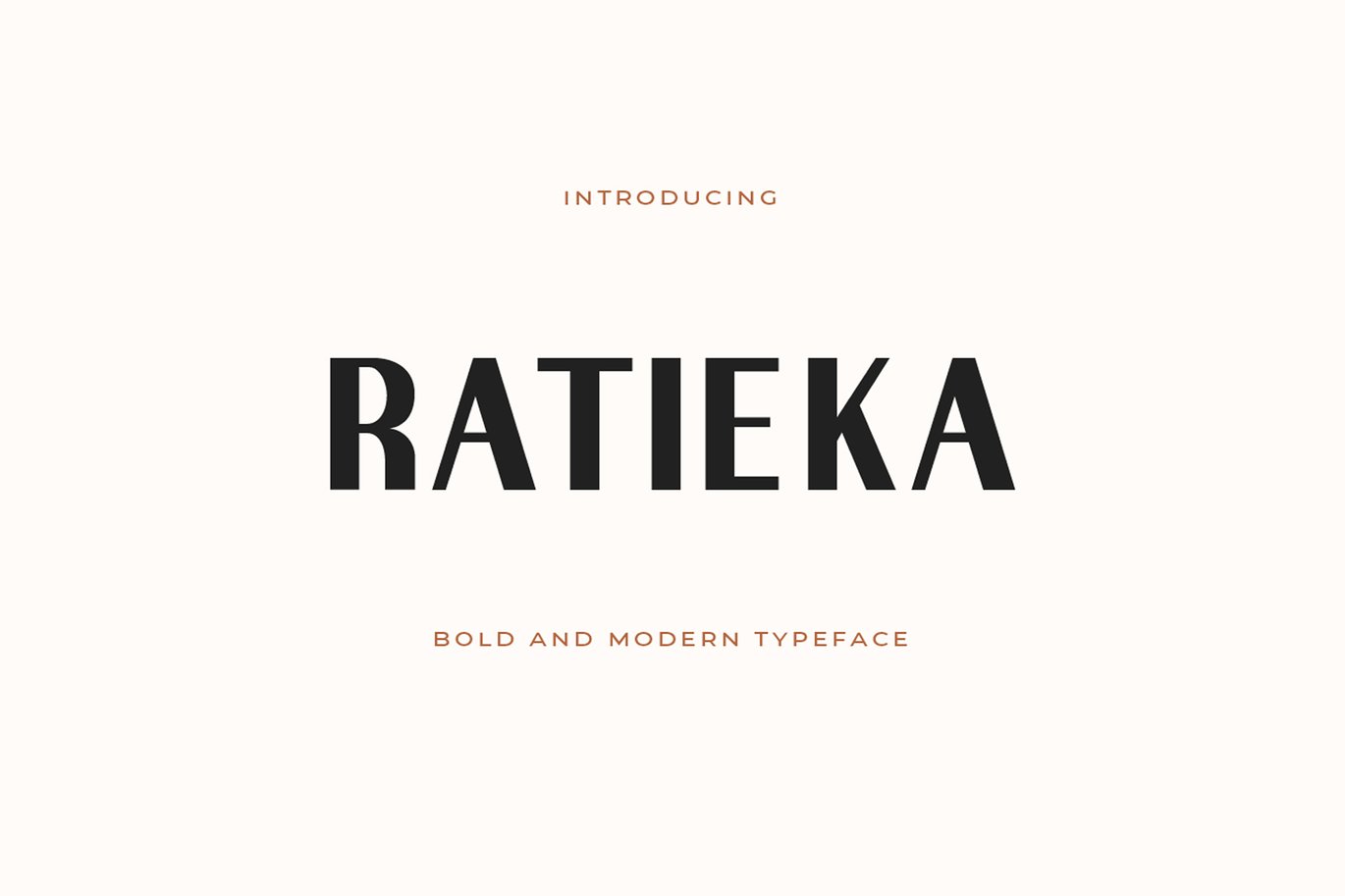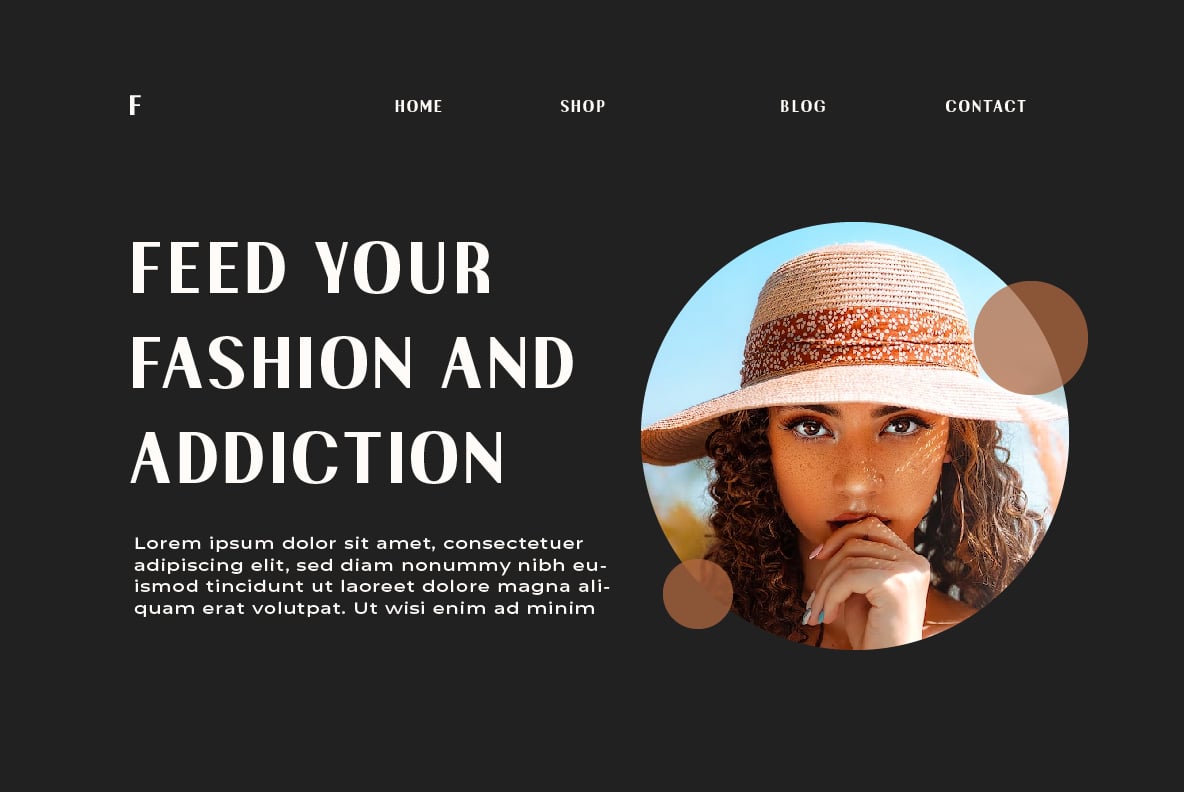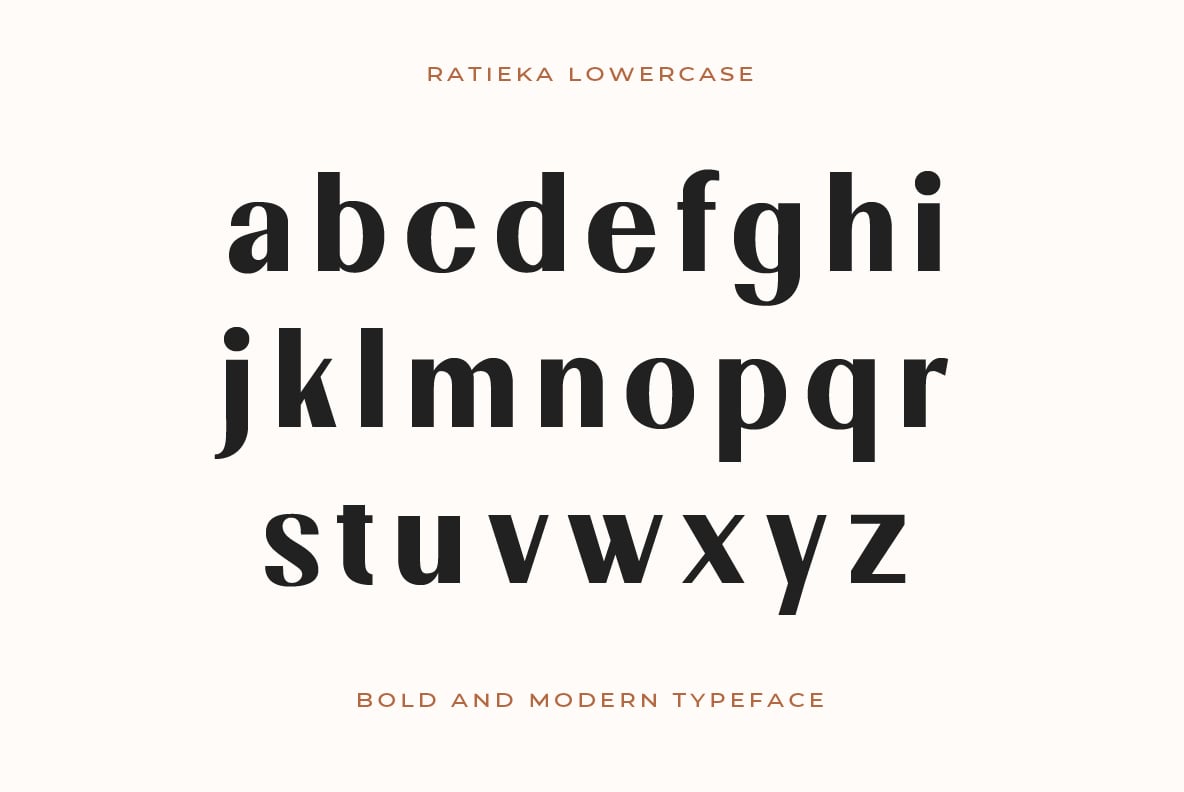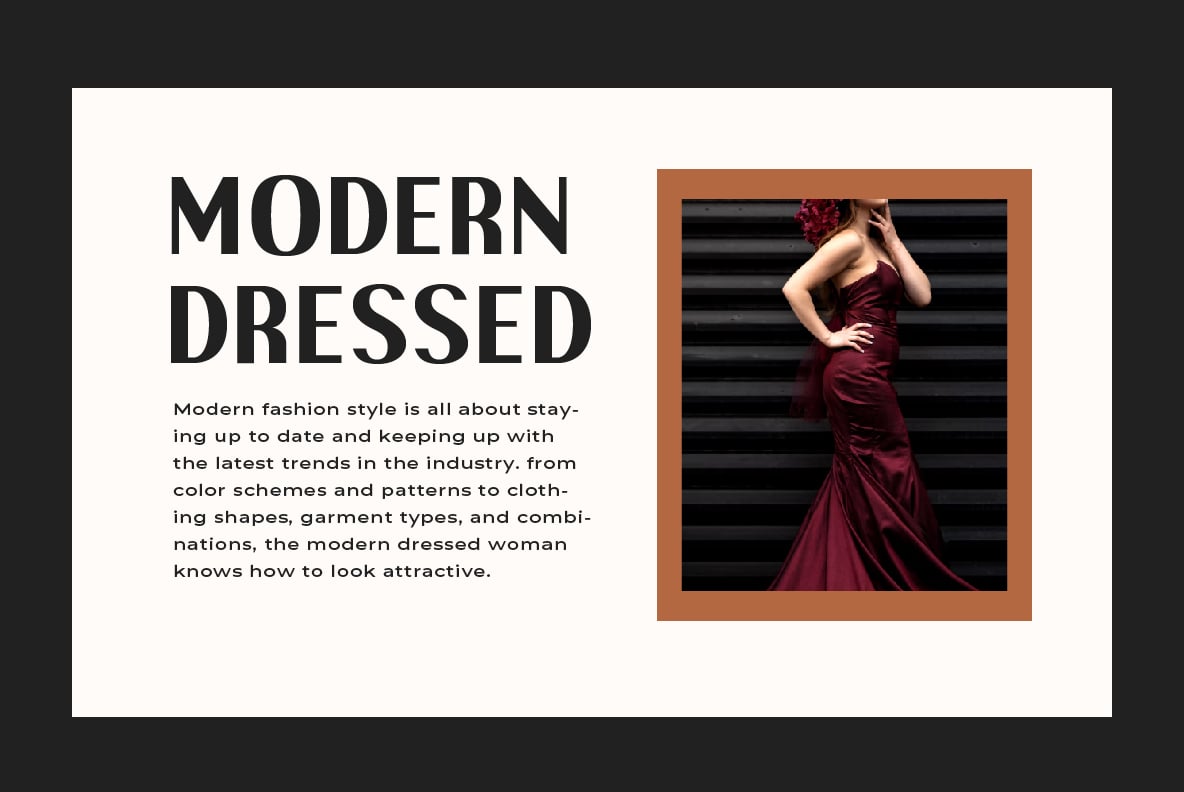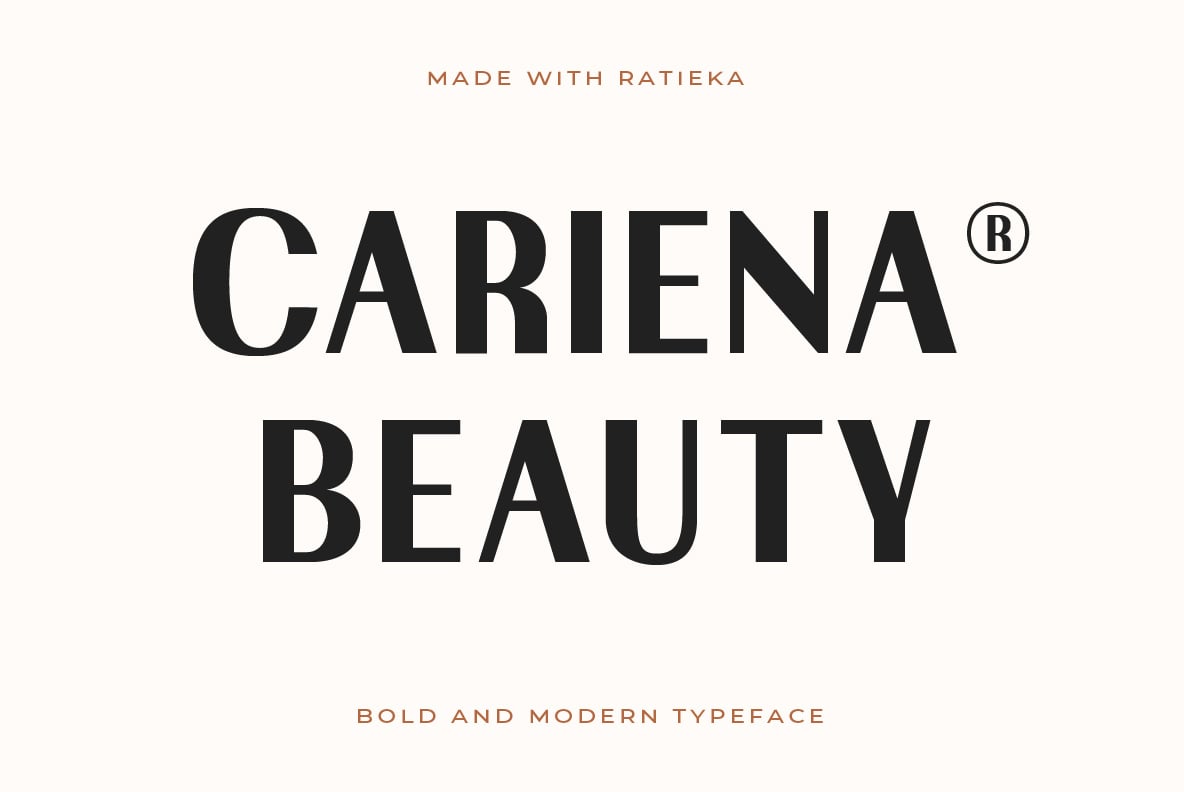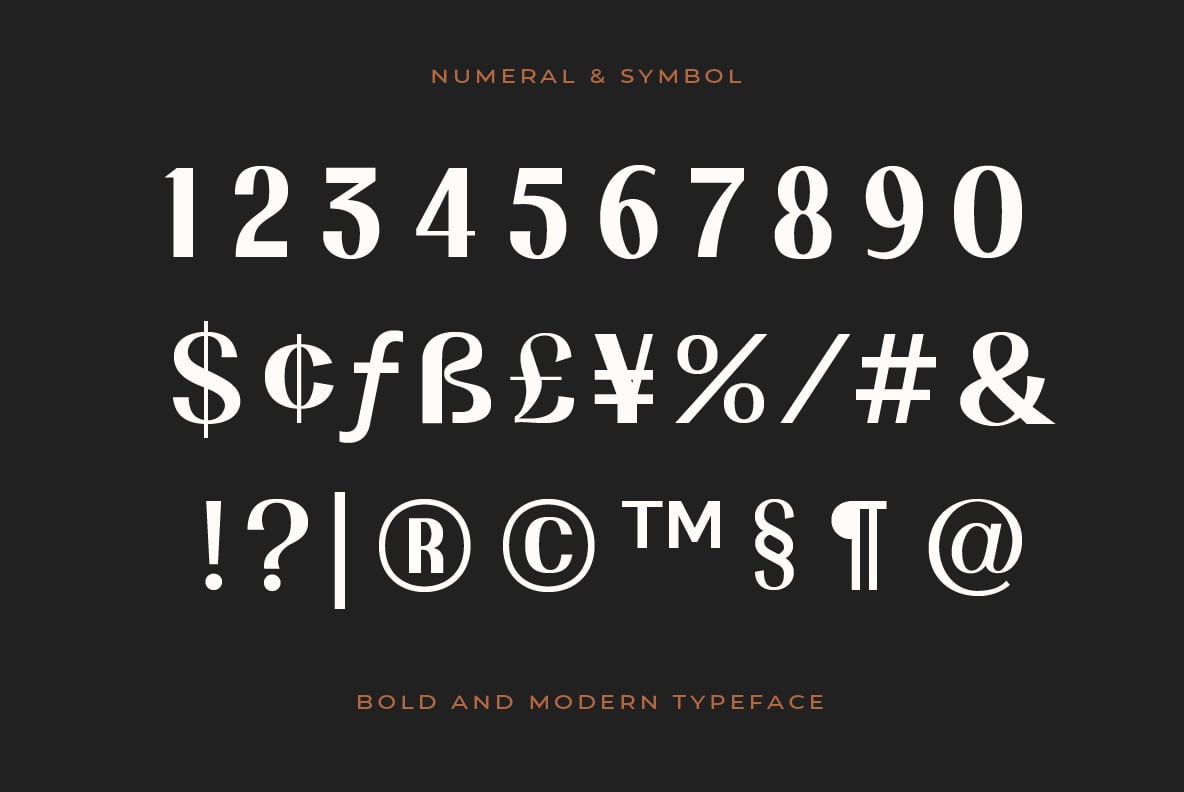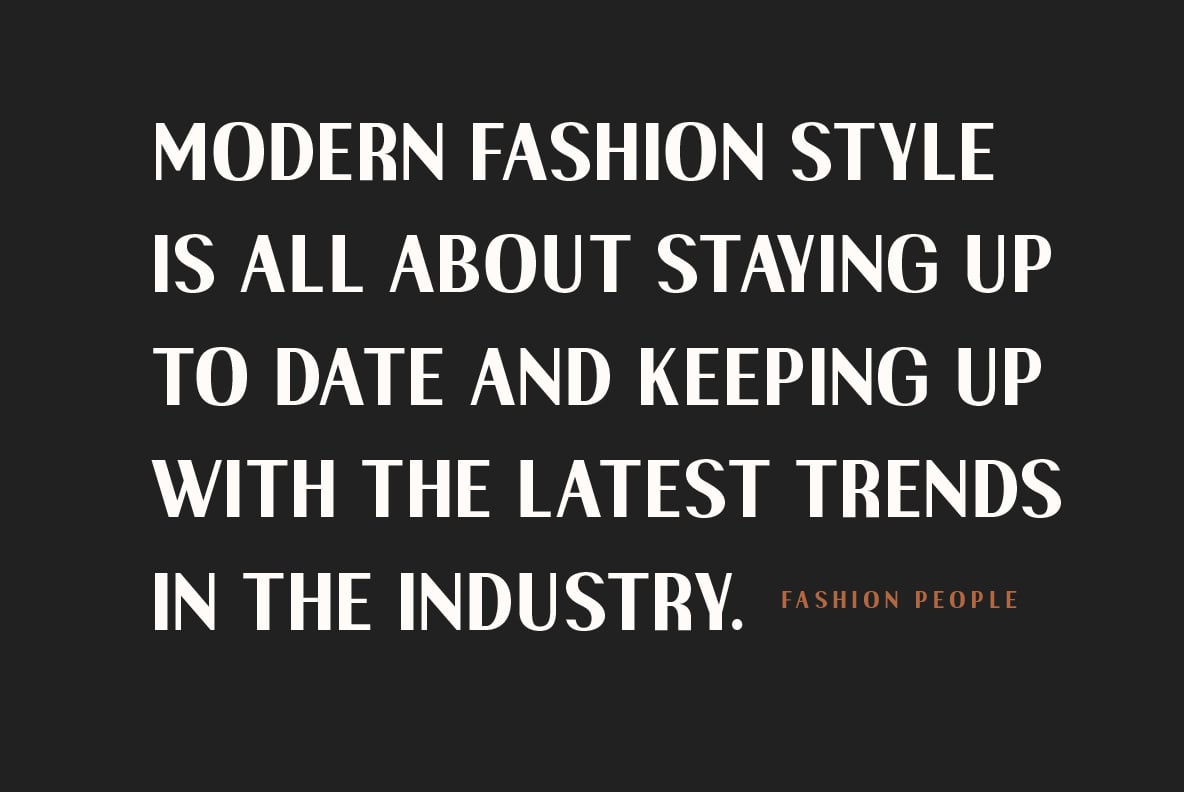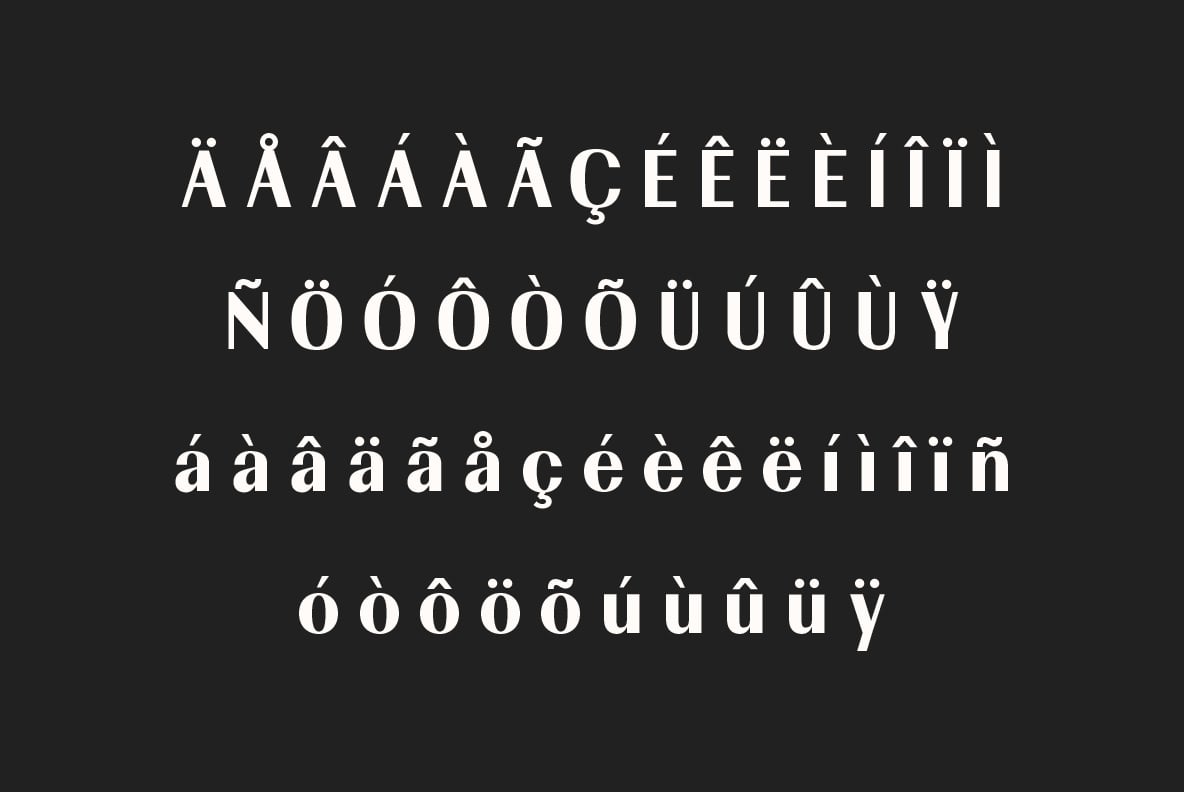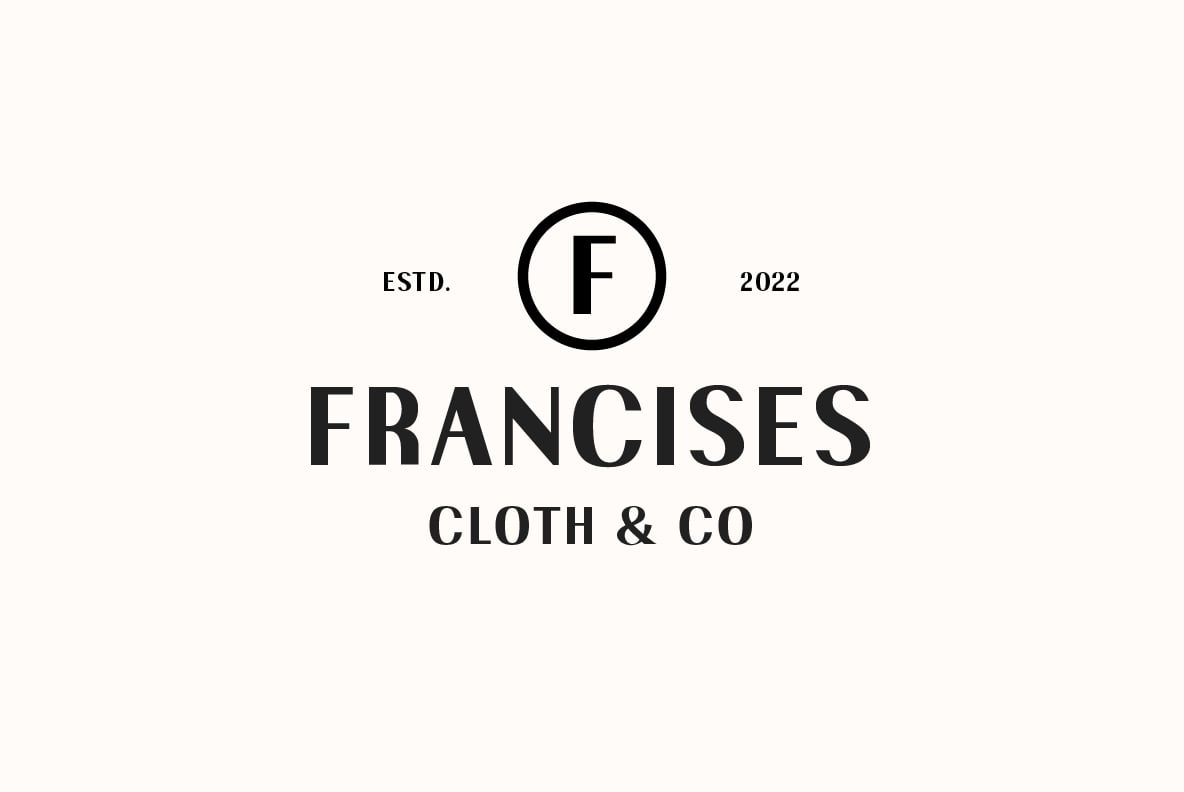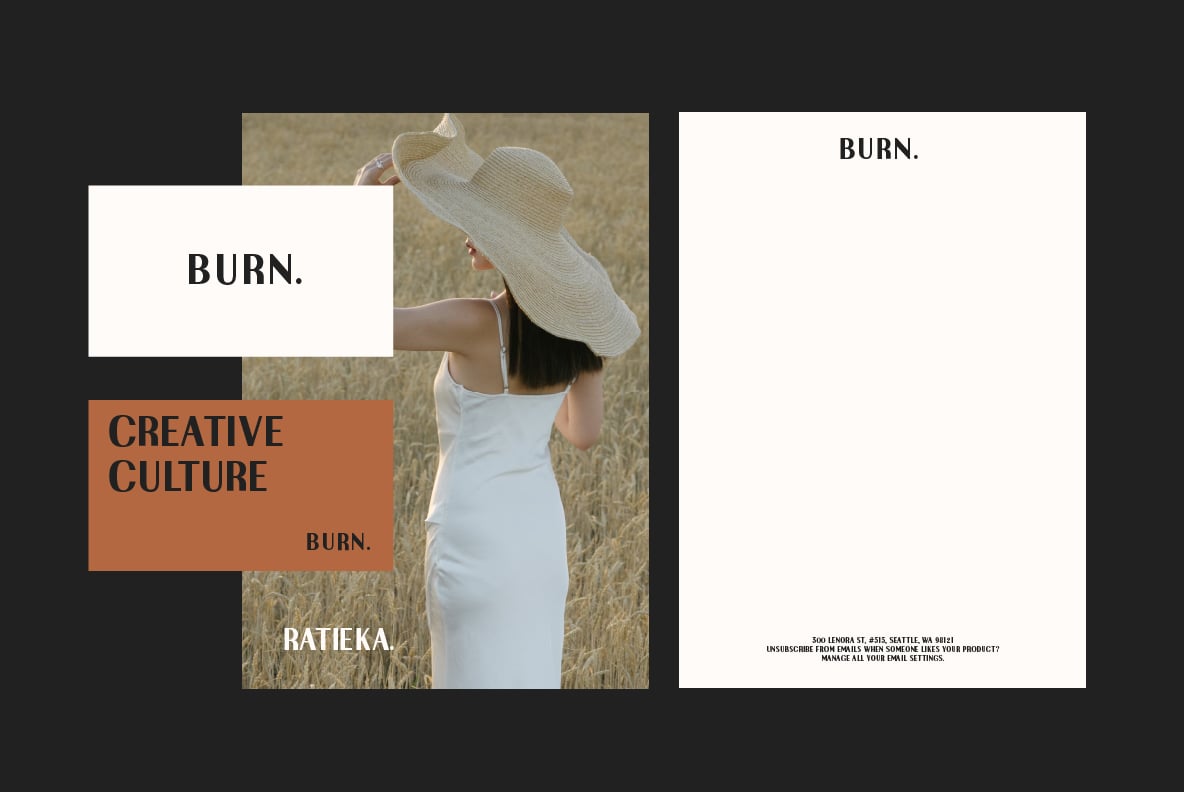
Ratieka Modern Font
Ratieka is a stylish, modern font that is perfect for use in fashion-related design projects.
Its elegant letterforms make it ideal for branding and logo design, while its high level of legibility makes it perfect for use in websites, advertising, and other types of communication.
- Supports all languages in the world (37)
- Versatile Single Font.
- One font for all needs.
Ratieka is perfect for modern fashion brands or any projects that require a high-end feel.